The signs of Spring are finally showing and as we come out of our own winter hibernation, we are delighted to share news of another brand new addition to the Fontwerk fam. Hot on the heels of Neue DIN, we welcome Hamster!
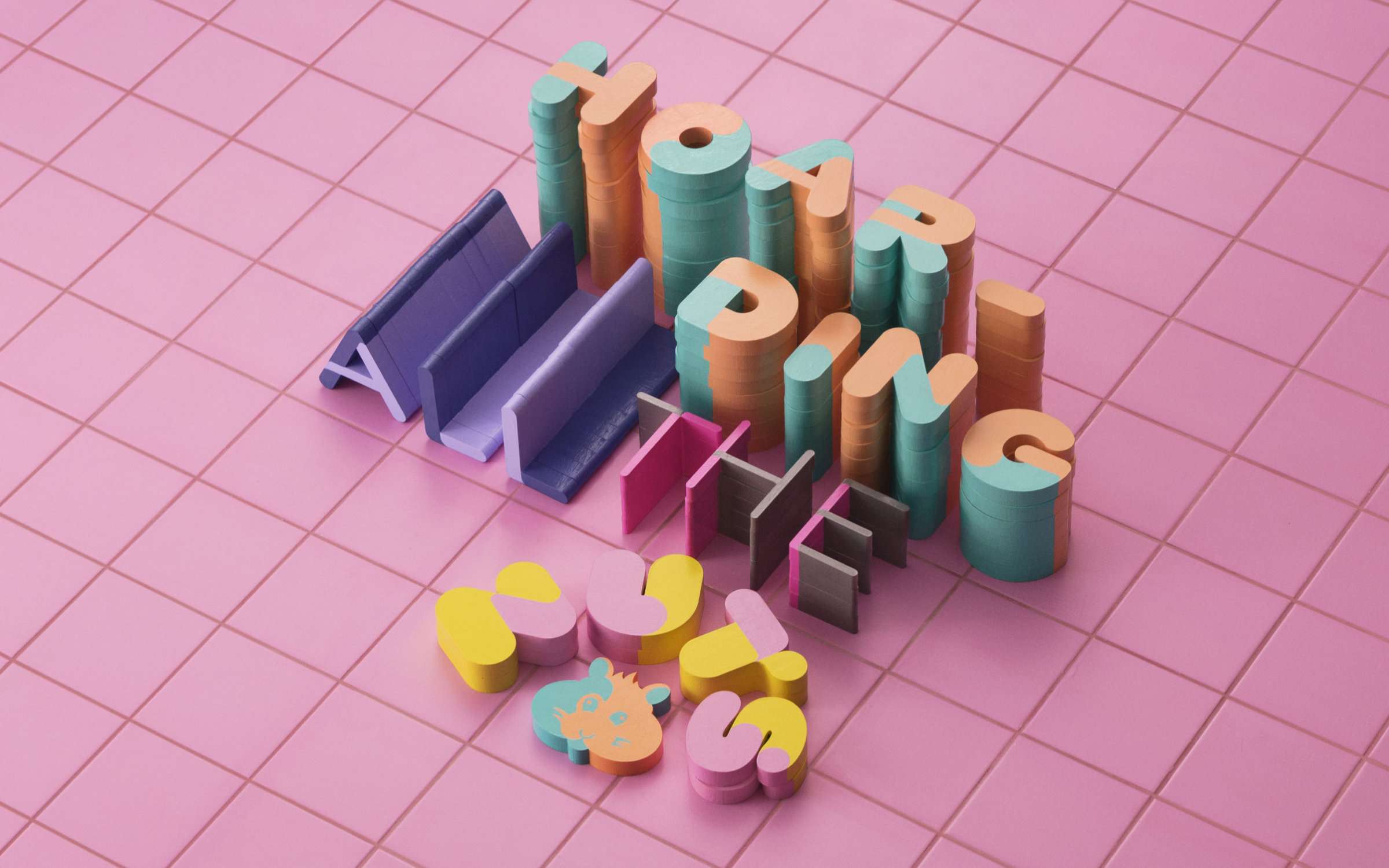 | GOODBYE BORING, HELLO HAMSTER |
The signs of Spring are finally showing and as we come out of our own winter hibernation, we are delighted to share news of another brand new addition to the Fontwerk fam. Hot on the heels of Neue DIN, we welcome Hamster! |
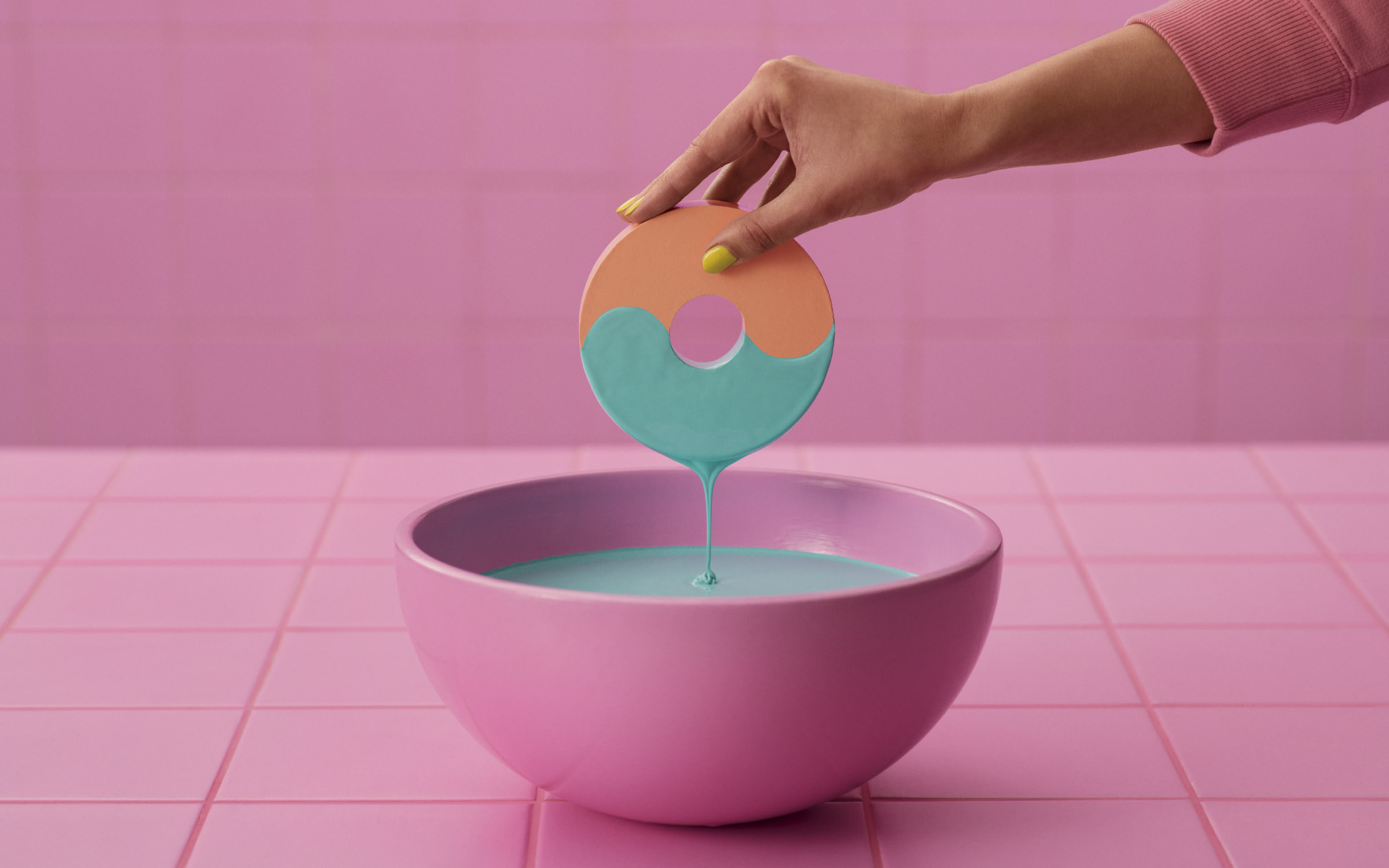 | | Joe Stitzlein’s Hamster is a colorful playground for designers. We put in all the paint we could get our hands on. | |
| | We’re getting serious – with fun fonts!Say goodbye to dull and dry typefaces, and hello to Hamster™ – a font unlike any other. Hamster is a two-tone Variable Color Font, bursting with fun!We worked with one of our favorite agencies, SNASK on a video campaign to welcome our newest addition to the world, head to HamsterFont.com to have a play. If you’re fed up with the same bland and boring brand identities, Hamster is a joyful and colorful antidote and offers designers a rich playground. Using Color Fonts technology, it’s packed full with nifty tricks, dingbats and even some hamster characters! The brainchild of world-leading brand identity designer, Joe Stitzlein, Hamster is inspired by the two-tone charm of the pets of his childhood friends and the rodents’ homes (aka ‘habitrails’). Using the tubular shape of the ‘habitrails’, it is a capital display typeface with rounded ends and bold font weights that are reminiscent of the furry creatures’ distinctive chubby cheeks. The lighter weights are less playful and would make for a perfect logotype for young fashion or food brands. Available in 10 colorways, if you select the lowercase letters they invert the colors for additional variation. You can also determine the coloring individually, for example to reflect the special colors of a brand, event or TV series. There’s also a number of nifty patterns that you create with the special characters. To see the magic of the dingbats in action, we’ve included a few specially made wallpapers that you can download with the trial fonts. | |